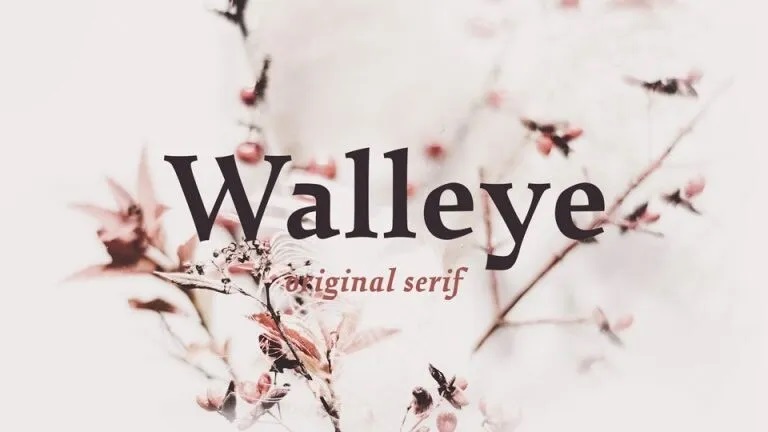
Walleye Font
Walleye is a high-quality serif font designed by Chuck Masterson and available for free download (personal & commercial use). The free version provides all uppercase and lowercase letters plus a few special characters too.
Walleye Serif Font